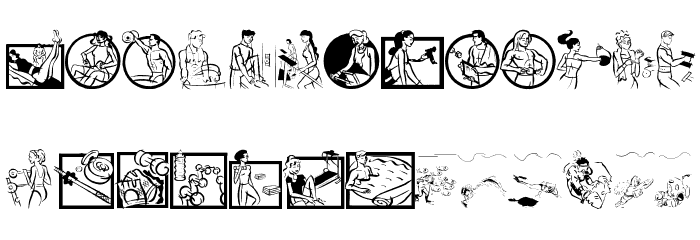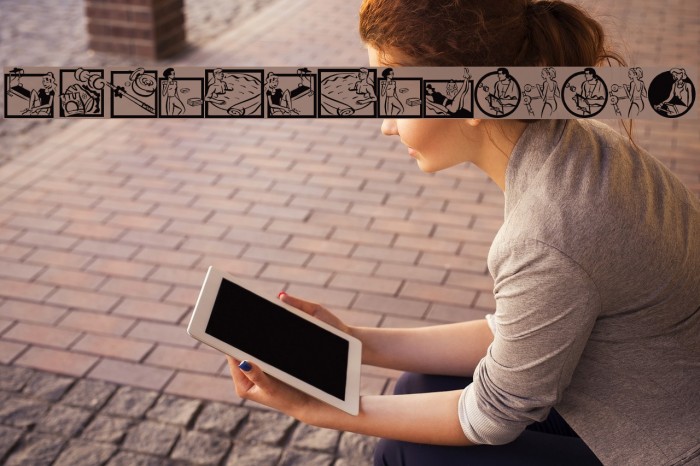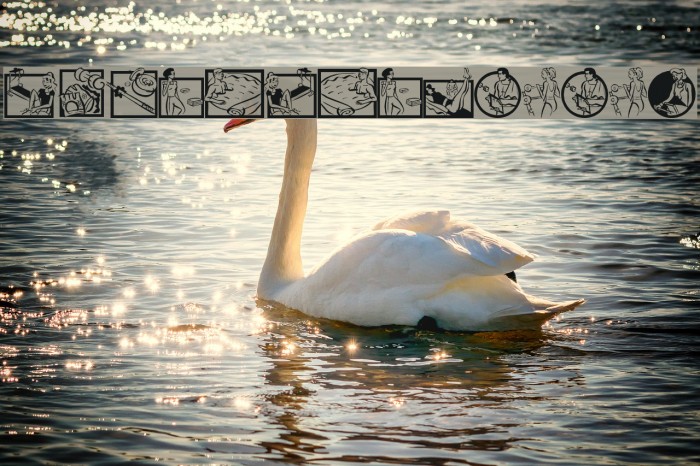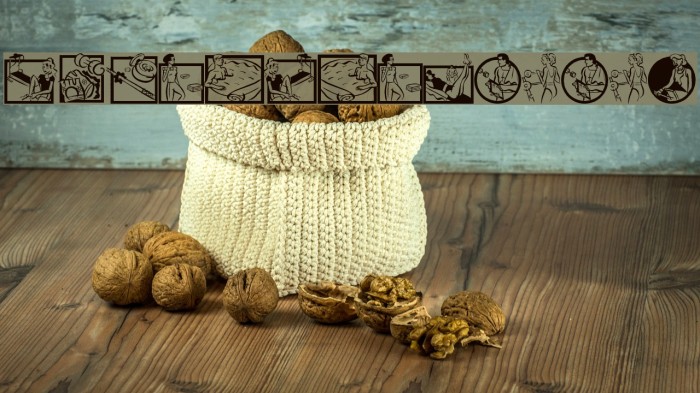
SportsTraining Font
This is not a valid font. The image contains illustrations depicting various sports training activities and exercises. Each character is represented by a unique drawing, showcasing different athletic movements and scenarios. The style is illustrative and focuses on dynamic poses and sports-related themes.
Illustrative depictions of sports training activities.
- Proposed Projects: This set of illustrations could be used for sports-themed educational materials, fitness apps, or motivational posters.
- Overall Style: Illustrative, Sporty
- Use Case: Decorative, Educational materials